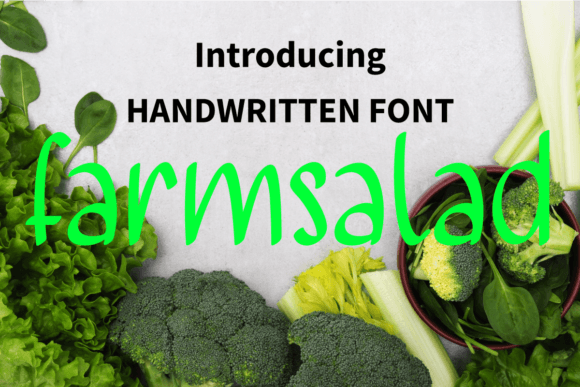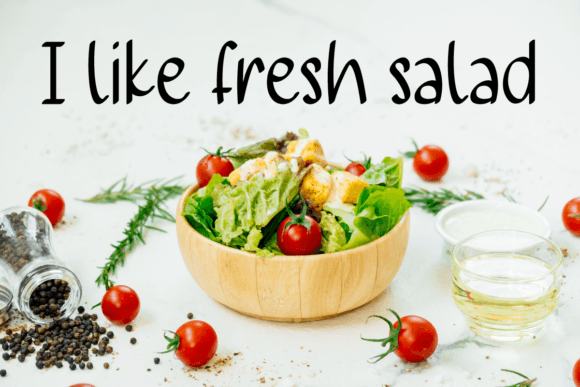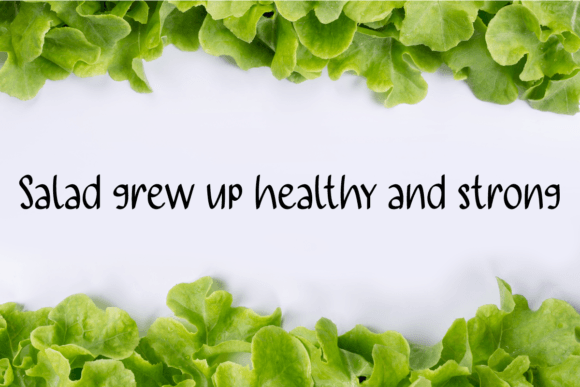
About Farmsalad Font
Farmsalad is a fun and friendly handwritten font. Whimsical and a bit quirky, this font will brighten up each of your designs. Add it confidently to your projects, and you will love the results. This typeface is perfect for logos, wedding invitations, quotes, advertisements, print, magazines, and more!